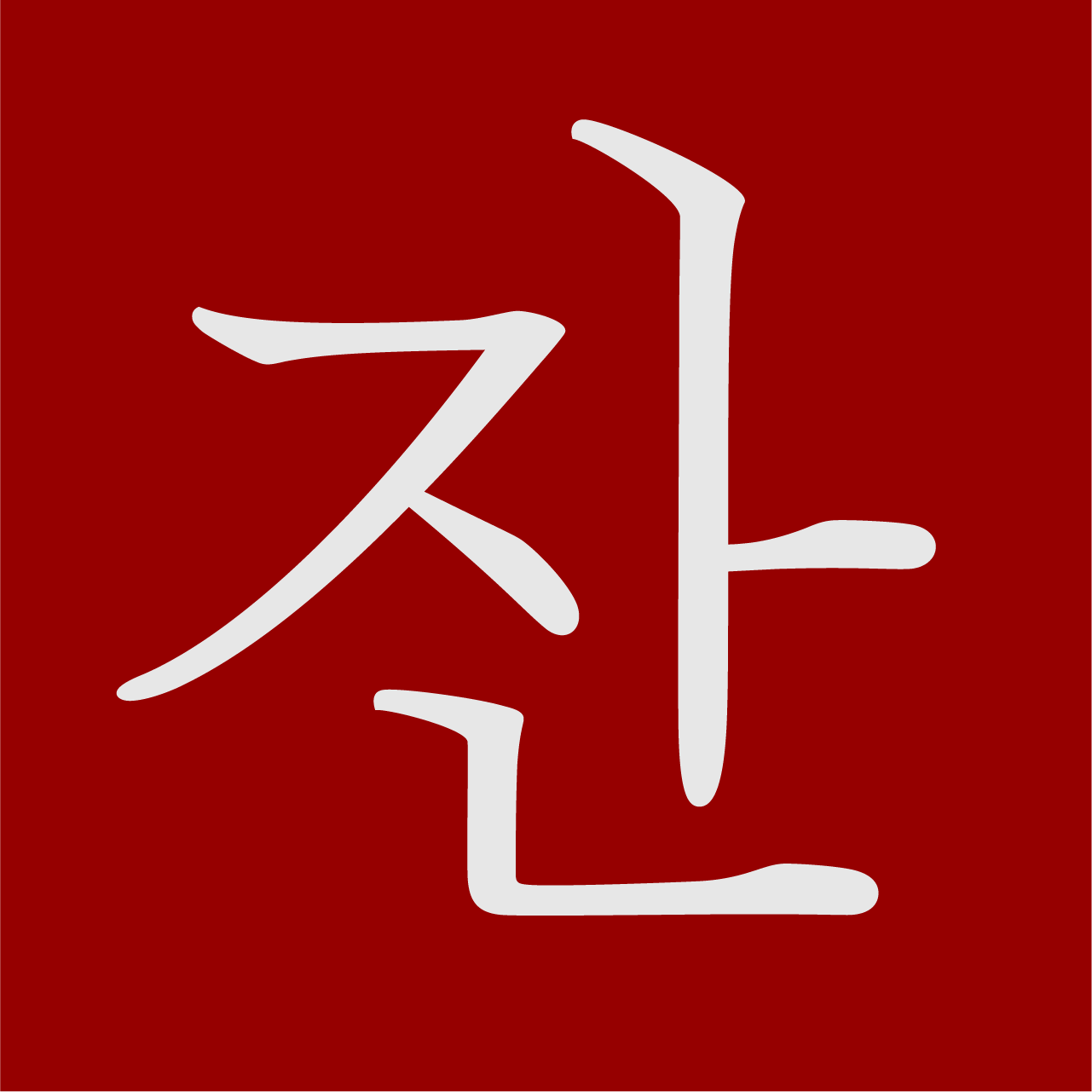
SD Jan
Sandoll
SD Jan
「SD Jan」 is a reinterpretation of a serif typeface created by Choijeongho for Samhwa Publishing in 1958. It is based on individual letterforms collected from the Modern Poets Anthology (Samhwa Publishing, 1971), and carries forward the character of the original type—printed at around 14 pt—while seeking to unite decorative beauty with everyday practicality for both titles and body text.
Starting from the balance and proportions found in Choijeongho’s original letterforms, 「SD Jan」 amplifies several key elements that shape its distinctive impression. These defining characteristics include the proportions of the serifs, the lively tension in the stroke endings—especially in the sharp, energetic terminals of siot (ㅅ)—the pronounced crown of ieung (ㅇ), the full, weighty dots, and crisp, faceted outer outlines. In addition, character size and placement within a line were refined to better suit horizontal text setting.
The Light weight of 「SD Jan」 preserves the feel of the original and is intentionally lighter than what is typical for a text face. The Regular weight, meanwhile, has been thickened to keep the forms from softening at small sizes or on dark backgrounds.
「SD Jan」 also supports two styles of commas and quotation marks, allowing you to choose the form that best matches the tone of your writing.
• Lim hyeeun